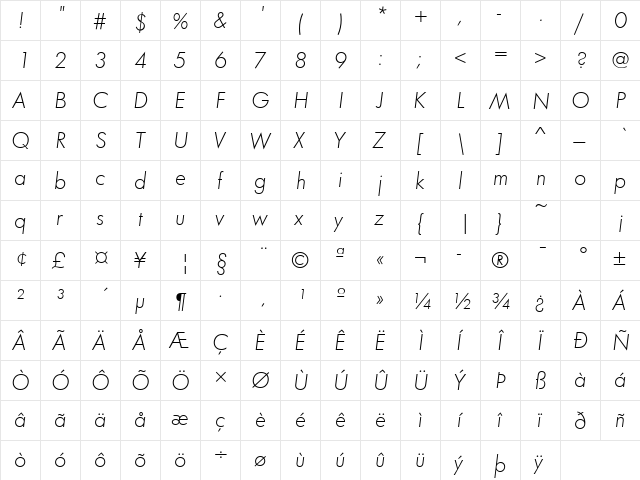
FuturaTLig Italic
Design Context for FuturaTLig Typeface
FuturaTLig channels digital-age aesthetics through its sharp, structured letterforms — ideal for brands that want to signal innovation. The slanted form adds forward momentum and visual energy.